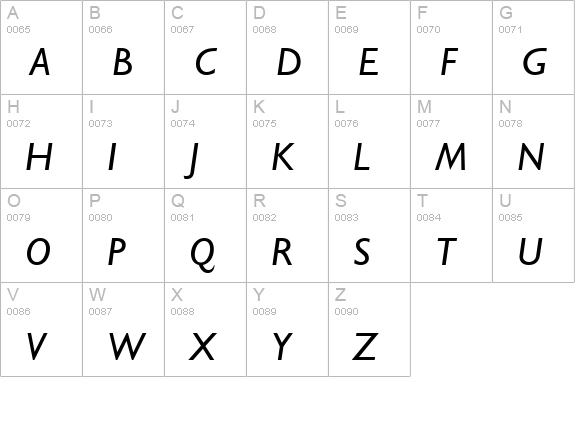
Garrison Light Sans BOLDITALIC is a refined, elegant variant in the Garrison typeface family \xE2\x80\x94 well suited to elegant body text, refined sub-headings, and luxury branding.
Introducing Garrison Light Sans BOLDITALIC font, a sleek and modern typeface that exudes sophistication and elegance. With its bold and italic styling, this font is perfect for making a statement in your designs. The Garrison Light Sans BOLDITALIC font strikes the perfect balance between professionalism and creativity, making it suitable for a wide range of projects. And the best part? Garrison Light Sans BOLDITALIC font is available for free download at FontsMarket.com. So you can easily add this versatile font to your collection without any cost. Whether you're designing a logo, creating a flyer, or working on a branding project, Garrison Light Sans BOLDITALIC font will elevate your designs and leave a lasting impression. Don't miss out on this opportunity to enhance your creative projects with this stylish and sophisticated font. Download Garrison Light Sans BOLDITALIC font today and take your designs to the next level!